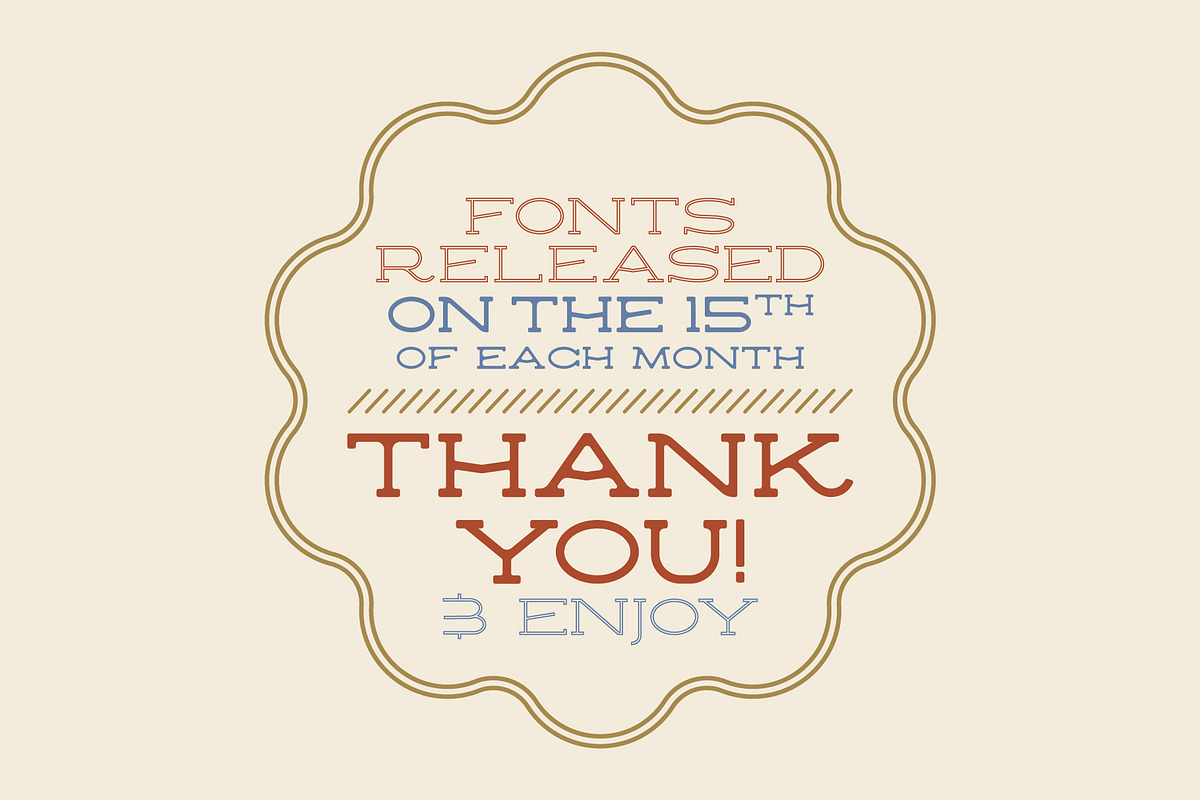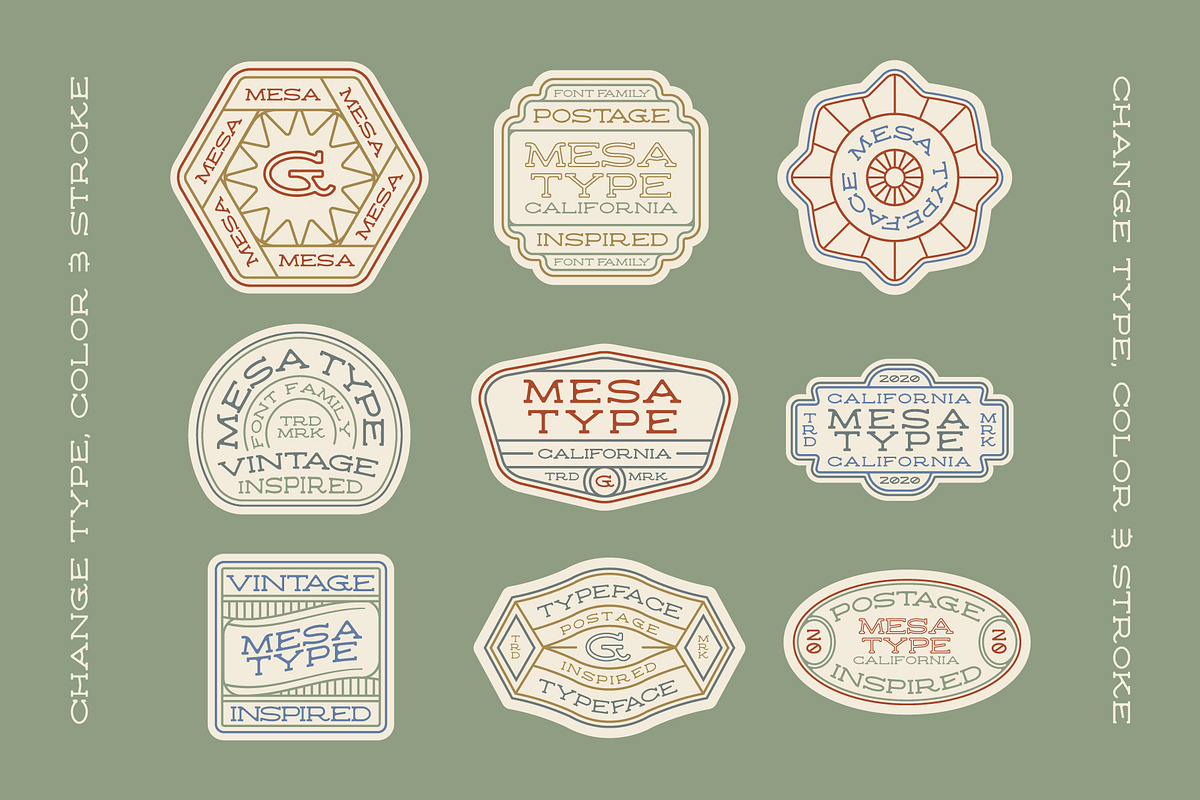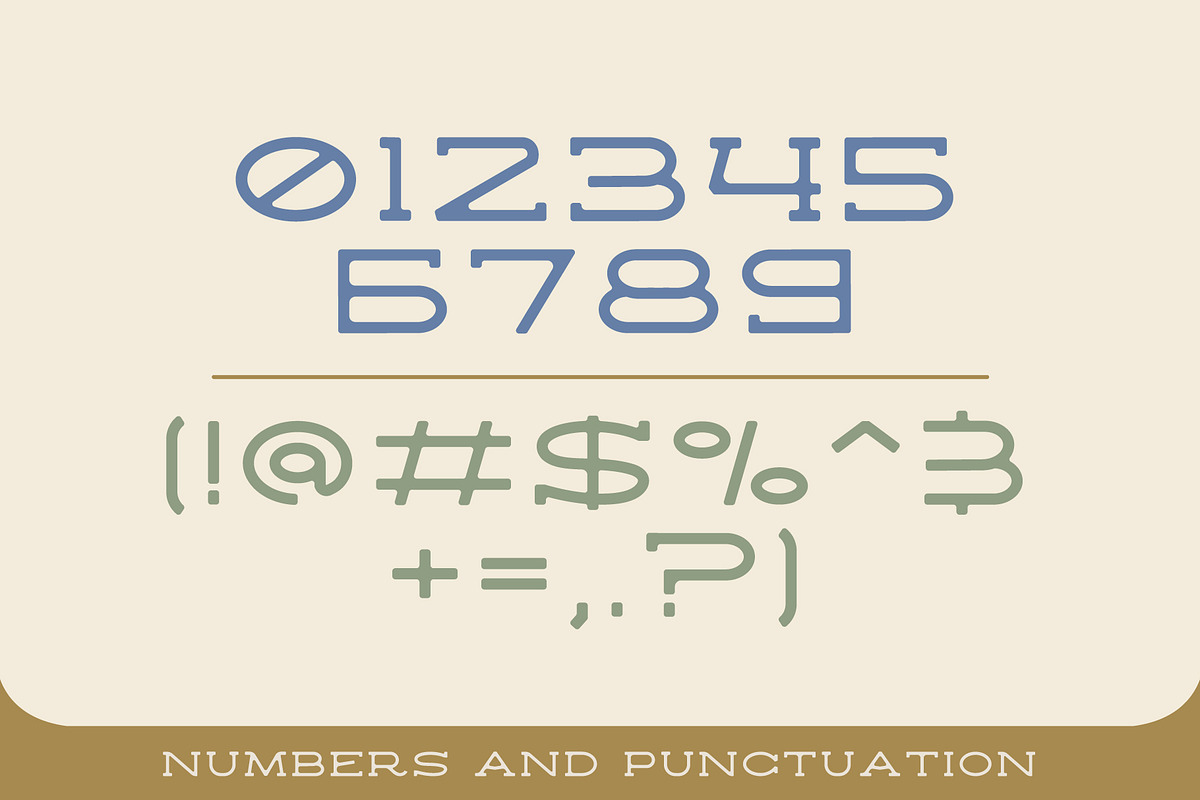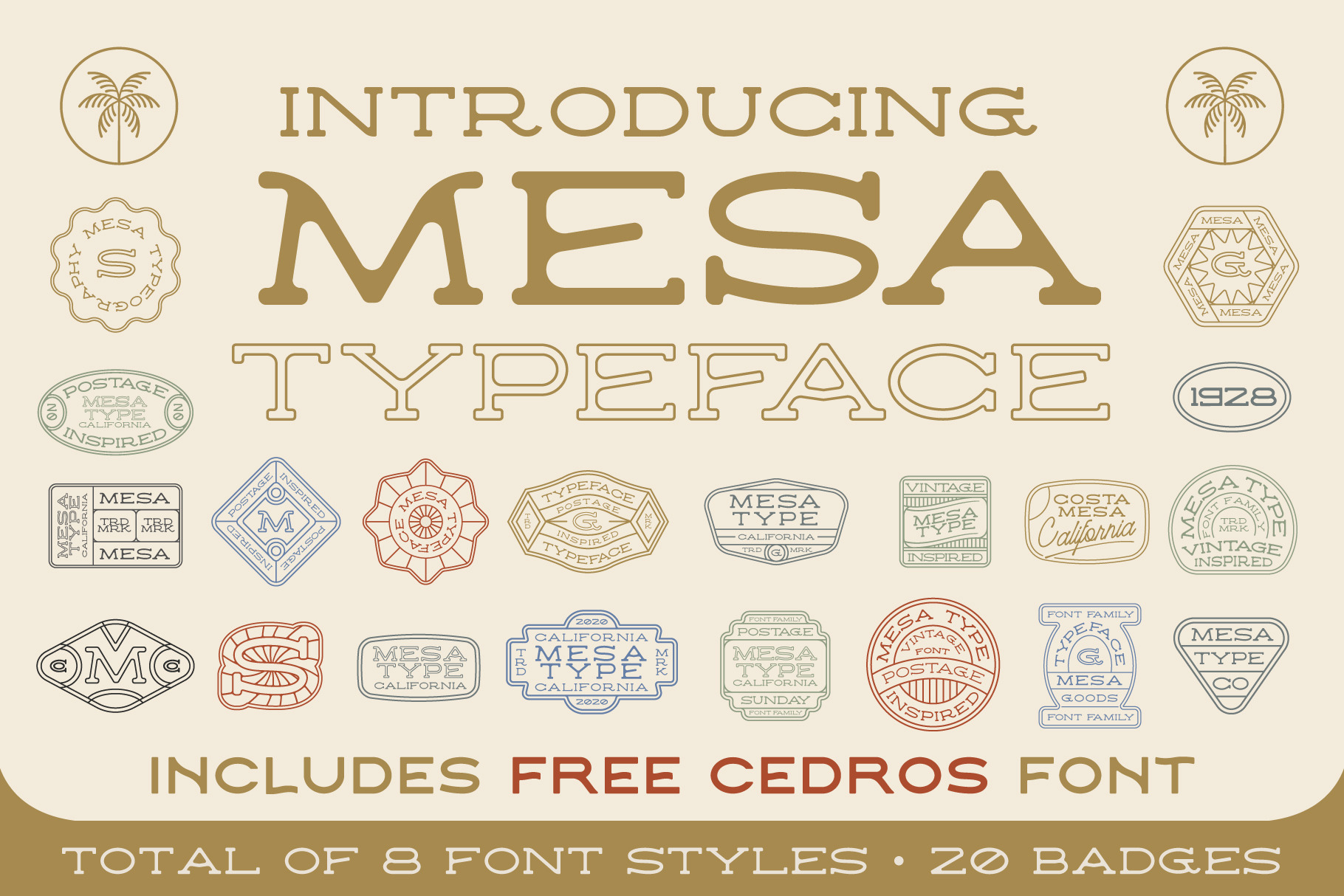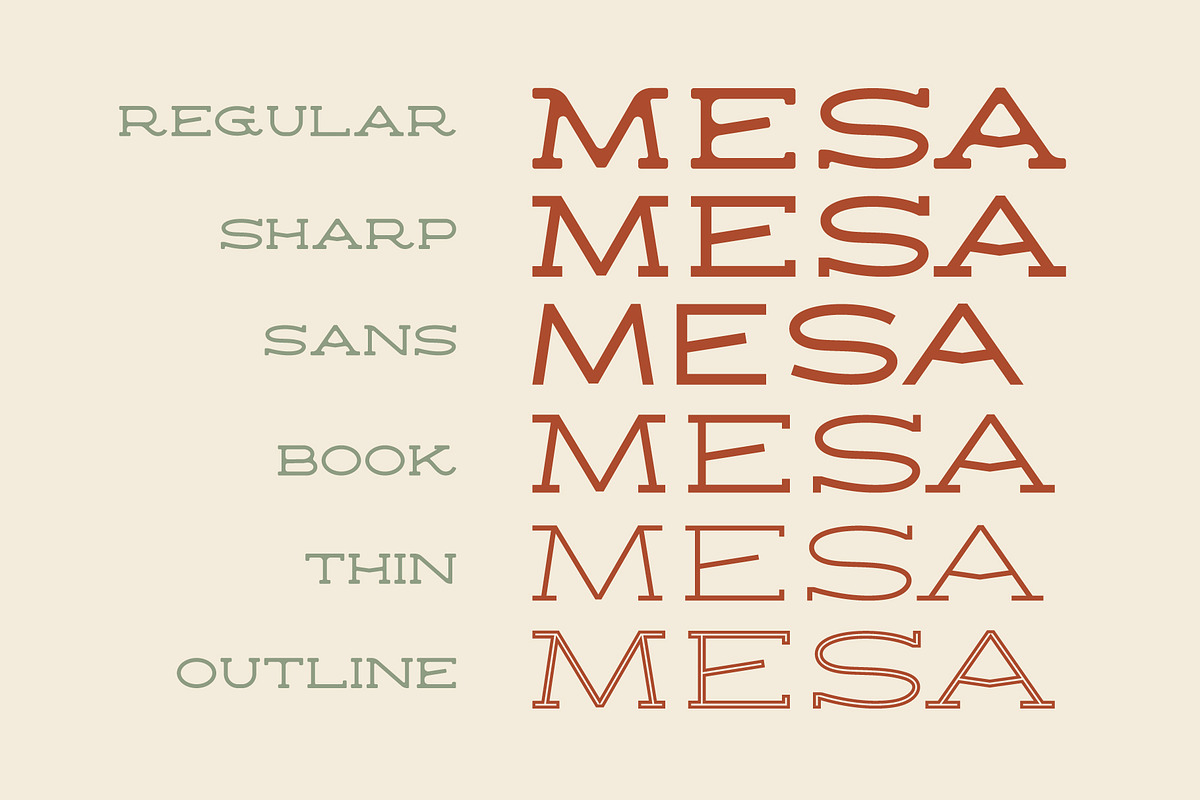
Mesa Font Duo
Introducing the Mesa Typeface bundle. A vintage postage & stamp inspired typeface including:
- 6 Mesa Type Styles
- 20 Vintage Stamp/ Badge logo templates (.AI) -Ready to use.
- FREE Cedros Type Family (2 Font Styles)